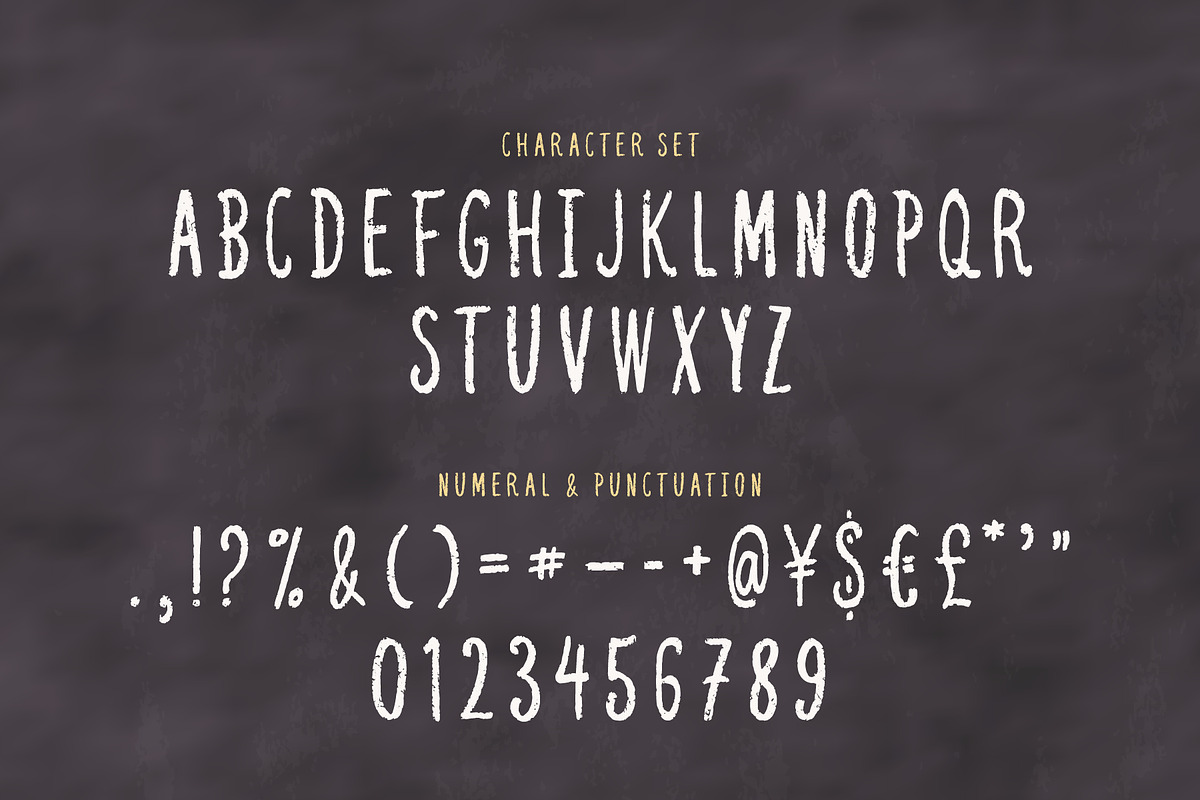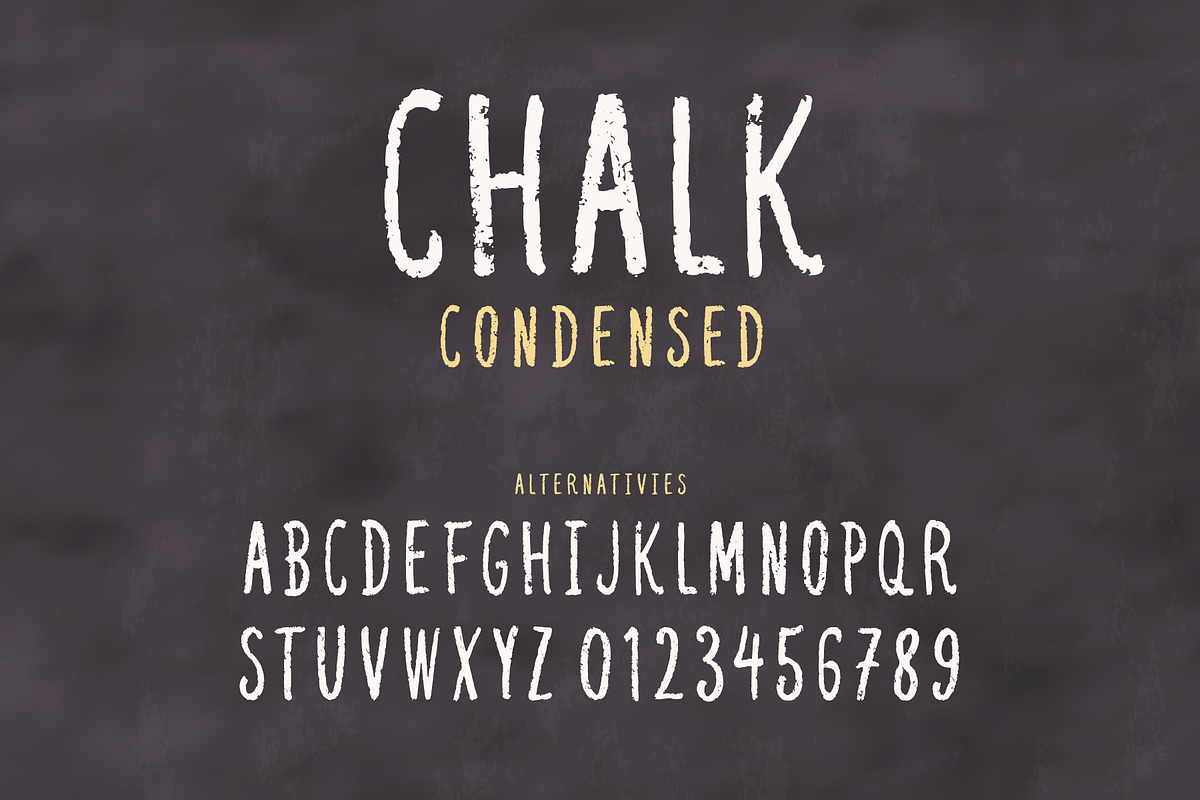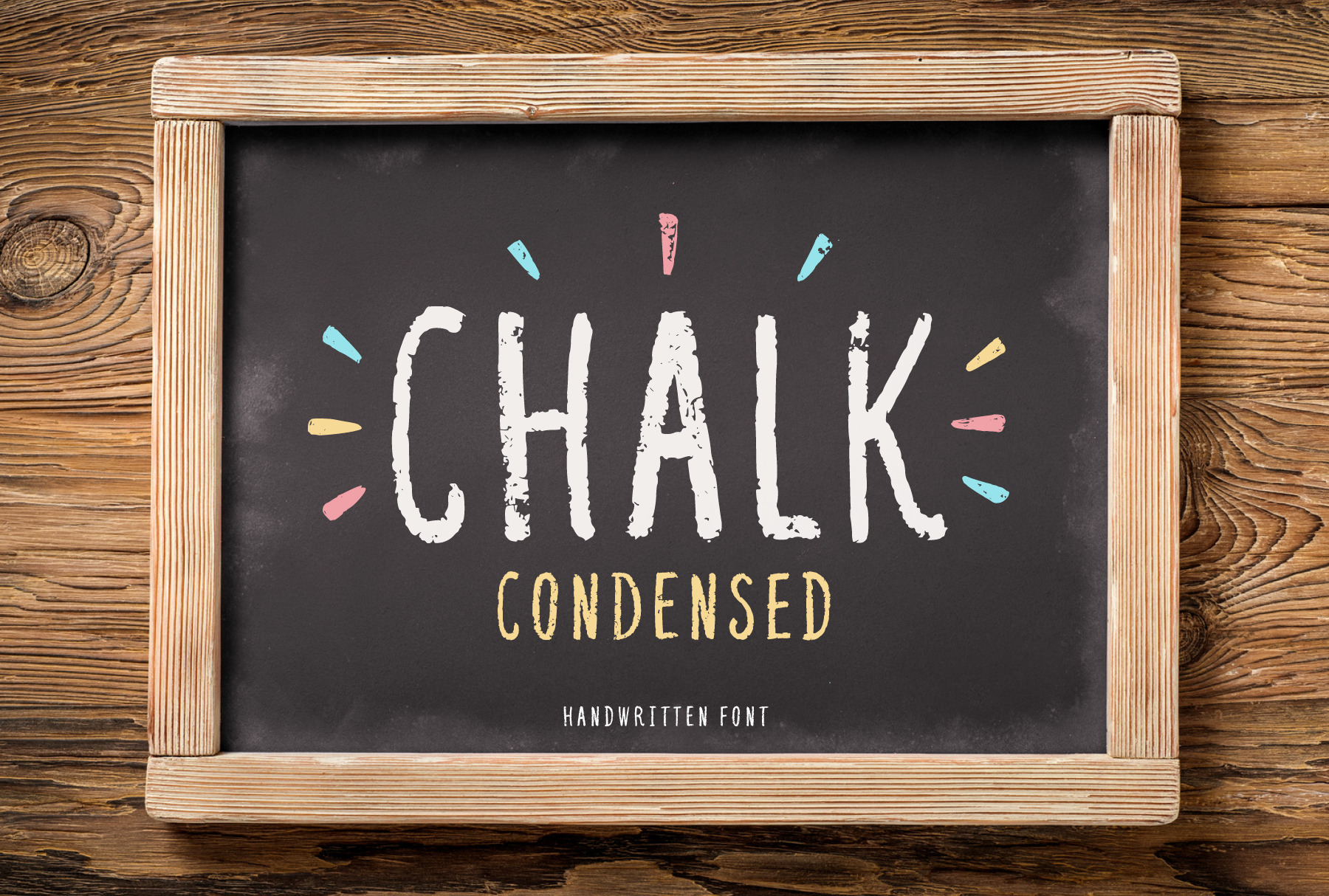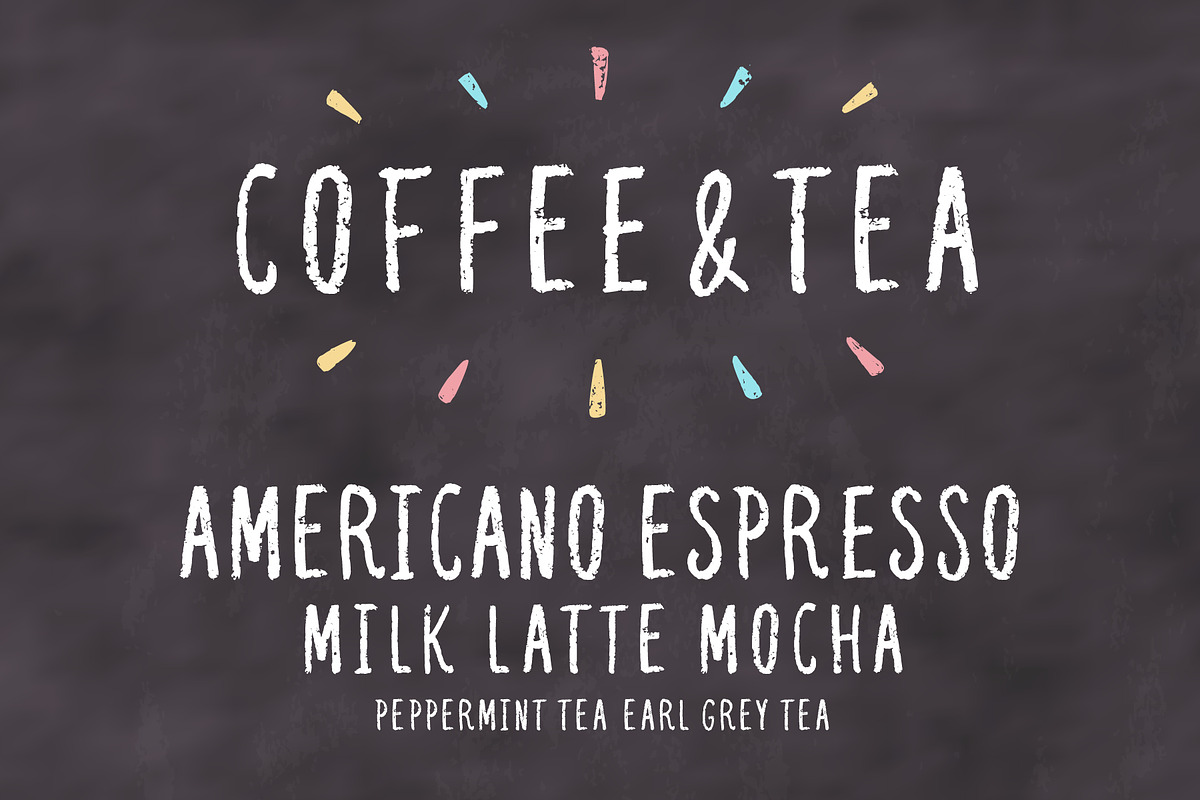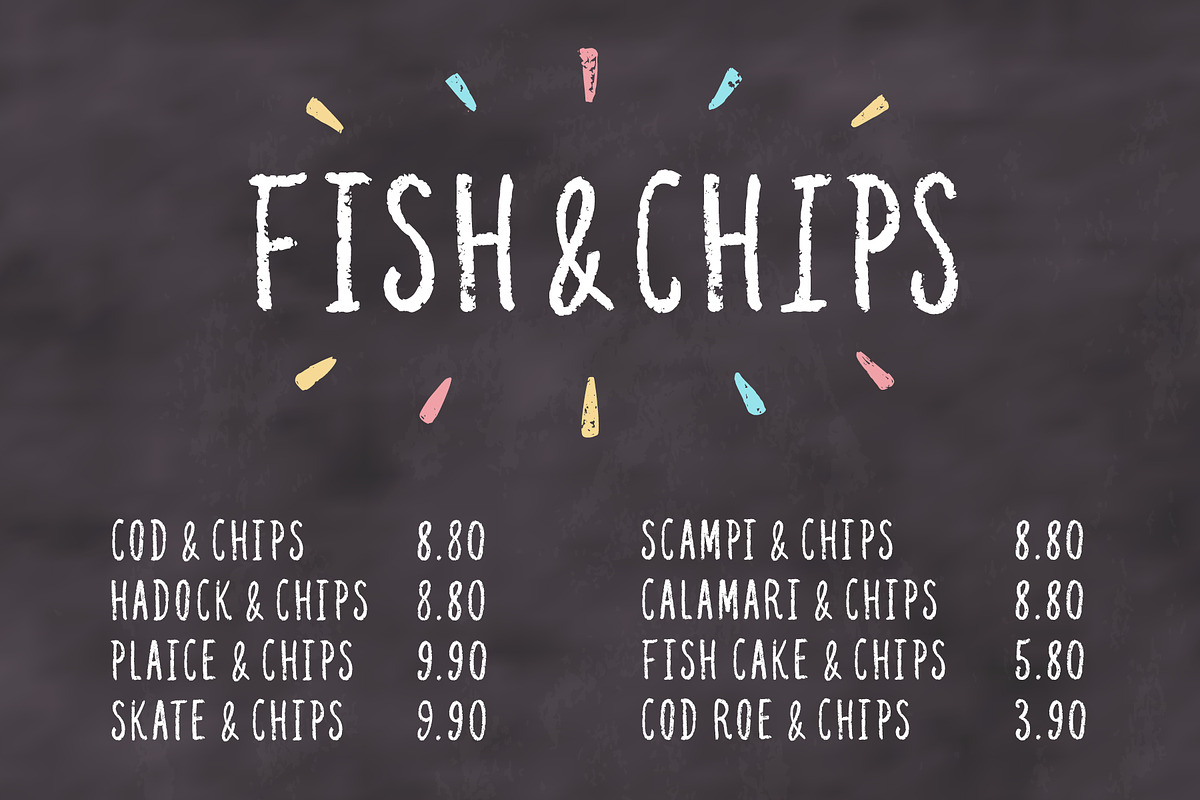
Chalk condensed font
Chalk condensed is a handwritten, all-caps typeface containing uppercase characters, numerals, a range of punctuation and alternates for letters and numbers. It should be good for menus, signs, posters, prints, inspirational quotes.
This font was just what I needed; it's easy to read but still has enough of a chalkboard texture to look realistic. My only wish—more punctuation & symbols.
Perfect for my needs. Consistent but not so uniform that it looked like a font. Ran it through a couple of Photoshop filters that helped with the realism.